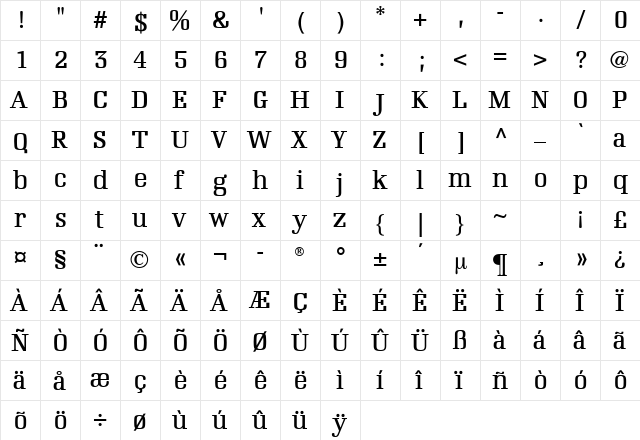
Napoleon Roman
Design Context for Napoleon Typeface
Napoleon is a composed and adaptable typeface that performs quietly and consistently across a wide range of design contexts.